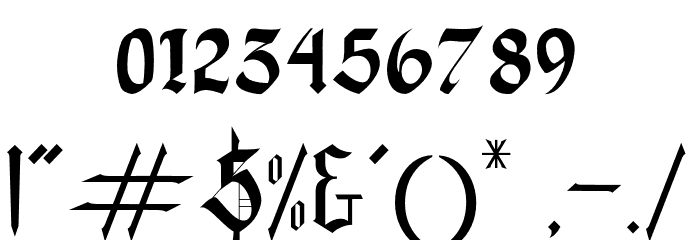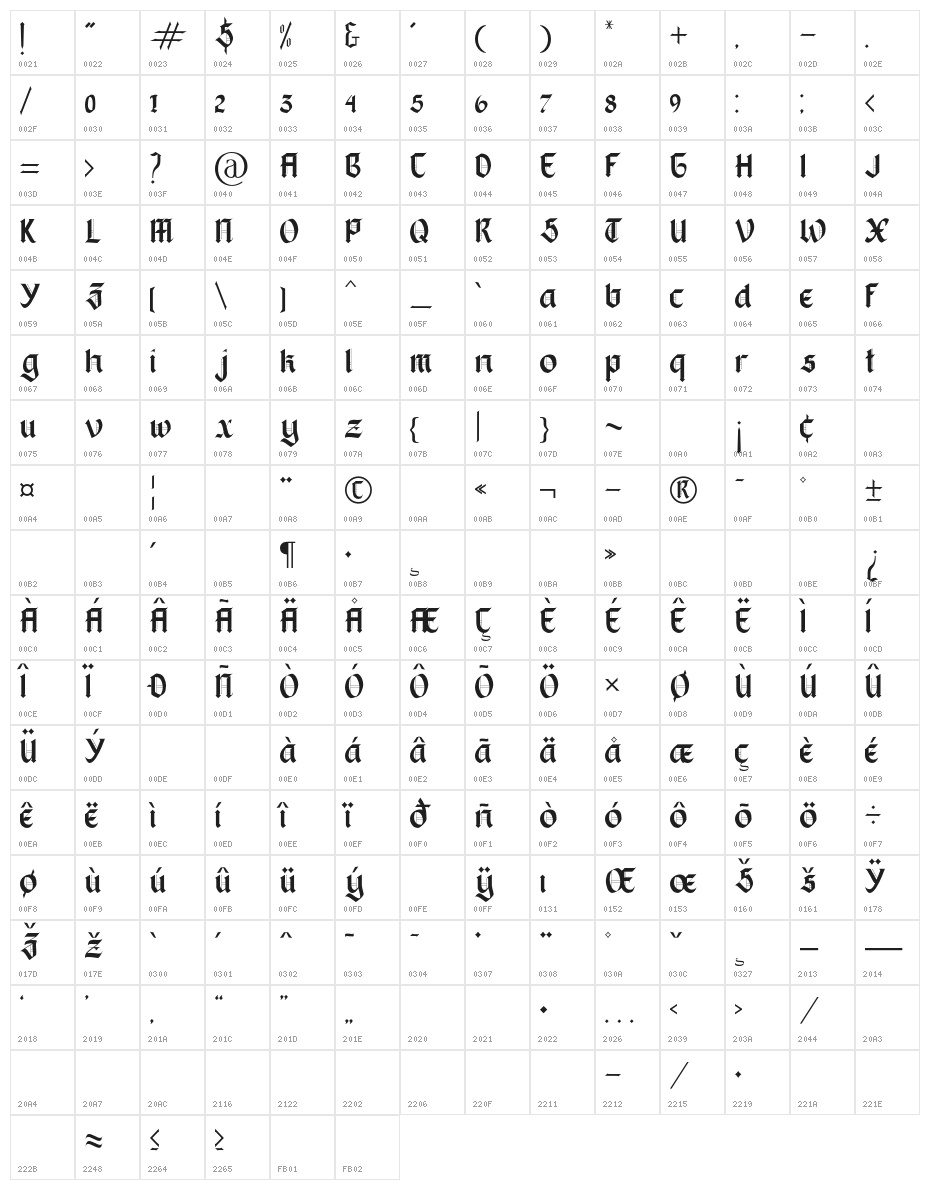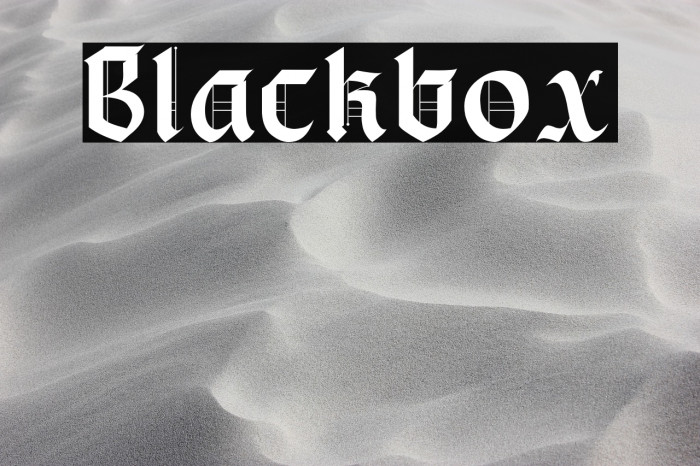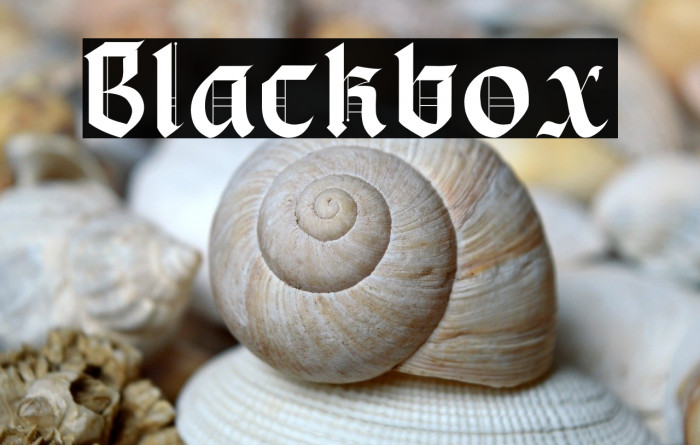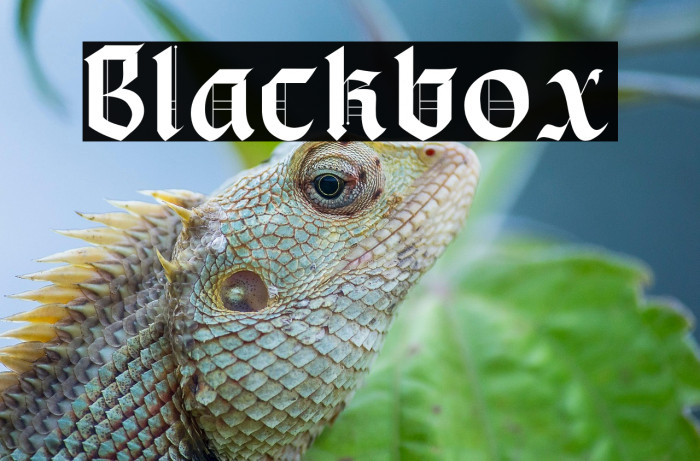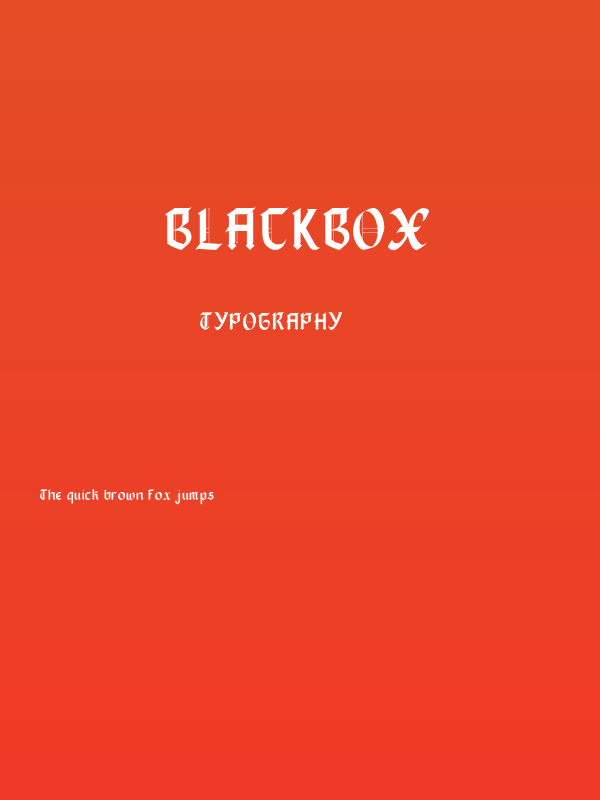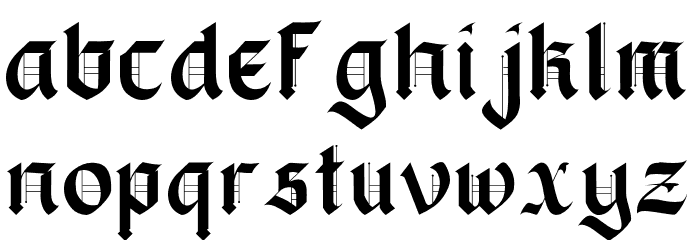
Blackbox Font
Blackbox Description
This font features a classic blackletter style, characterized by its intricate and ornate letterforms. The uppercase letters are bold and angular, with sharp edges and a strong presence. The lowercase letters maintain the same decorative style, with a slightly more fluid and connected appearance. The numbers are consistent with the overall theme, offering a cohesive look across all characters. Special characters are equally elaborate, adding to the font's historical and traditional feel. This font is ideal for projects that require a touch of elegance and a nod to medieval or Gothic aesthetics.
| Proposed Projects | Suitable for wedding invitations, historical documents, book covers, and branding that requires a traditional or Gothic touch. |